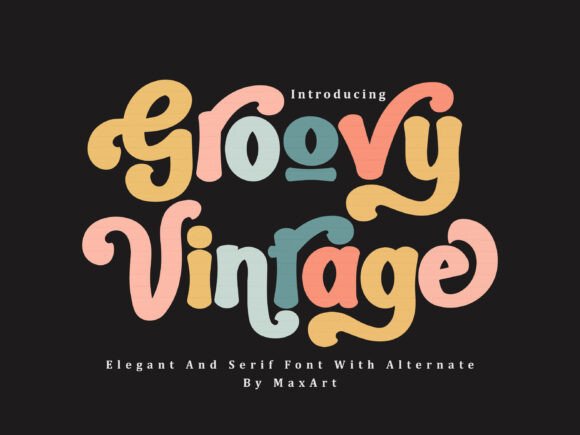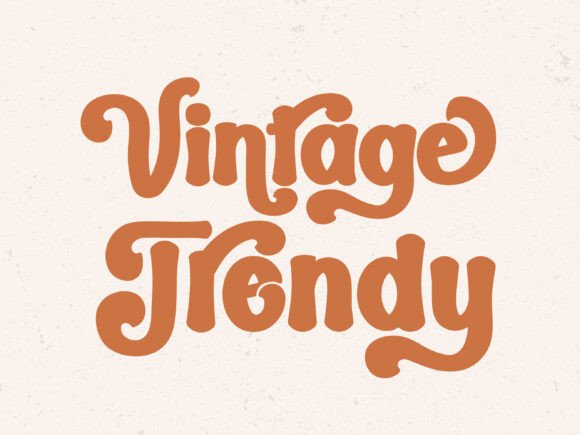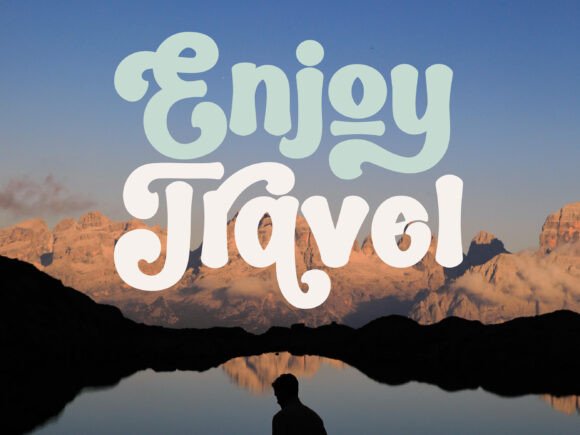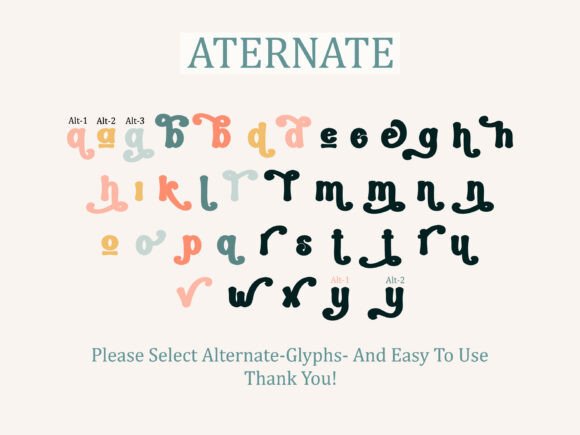
Groovy Vintage Font
Groovy Vintage a modern and elegant serif font with vintage charm fashionable look . Groovy Vintage is well-suited for advertising, Travels, Wedding, Holiday, New Year, branding, logotypes, packaging, titles, headlines and more editorial design.